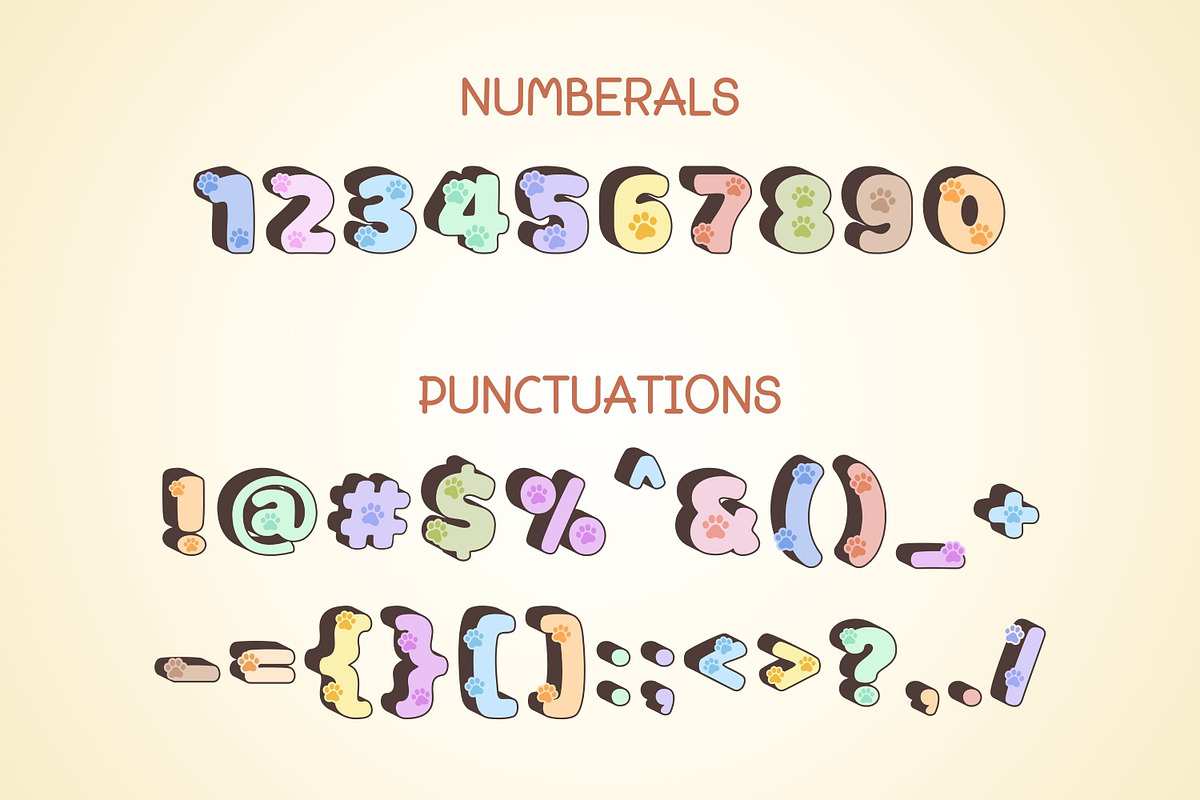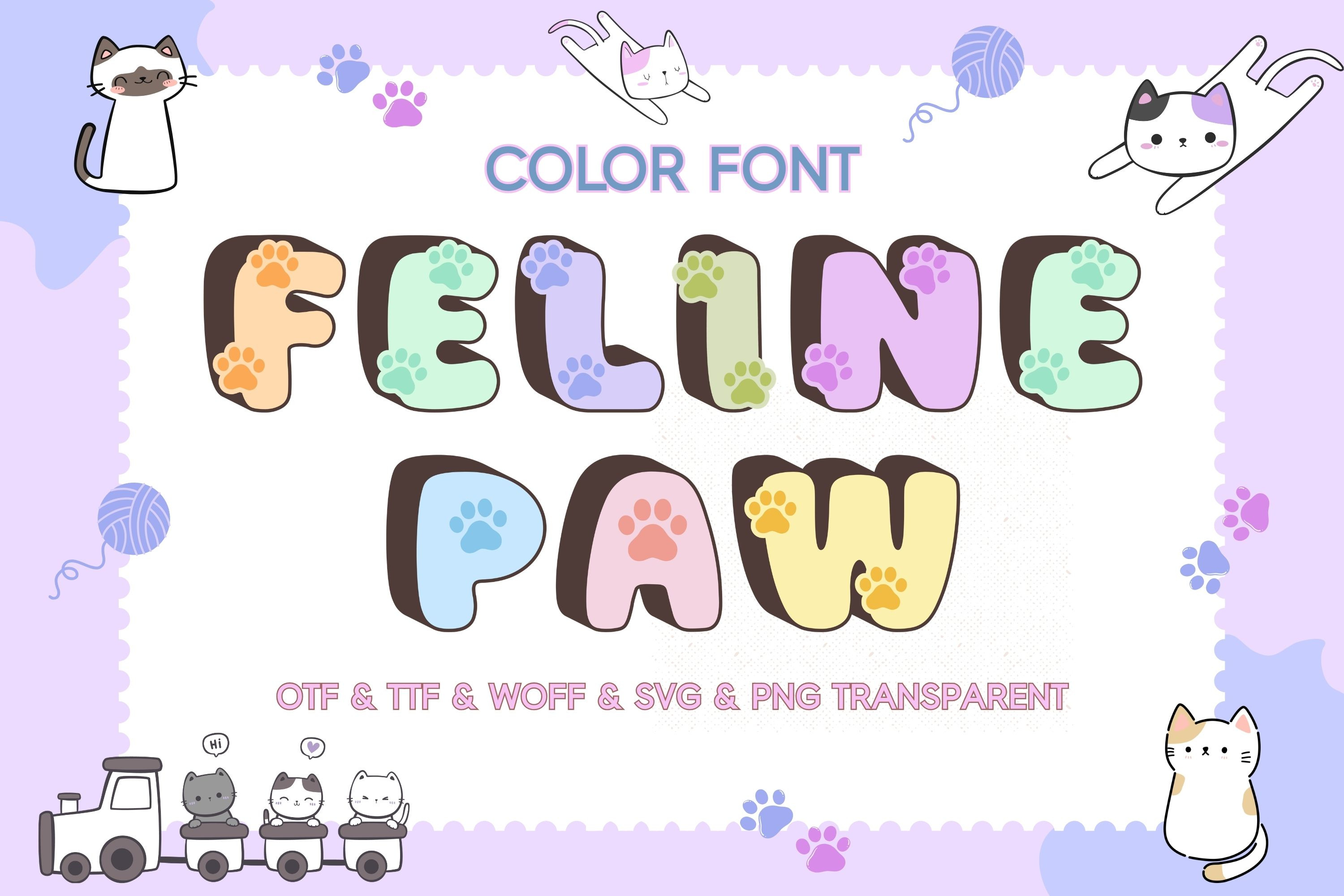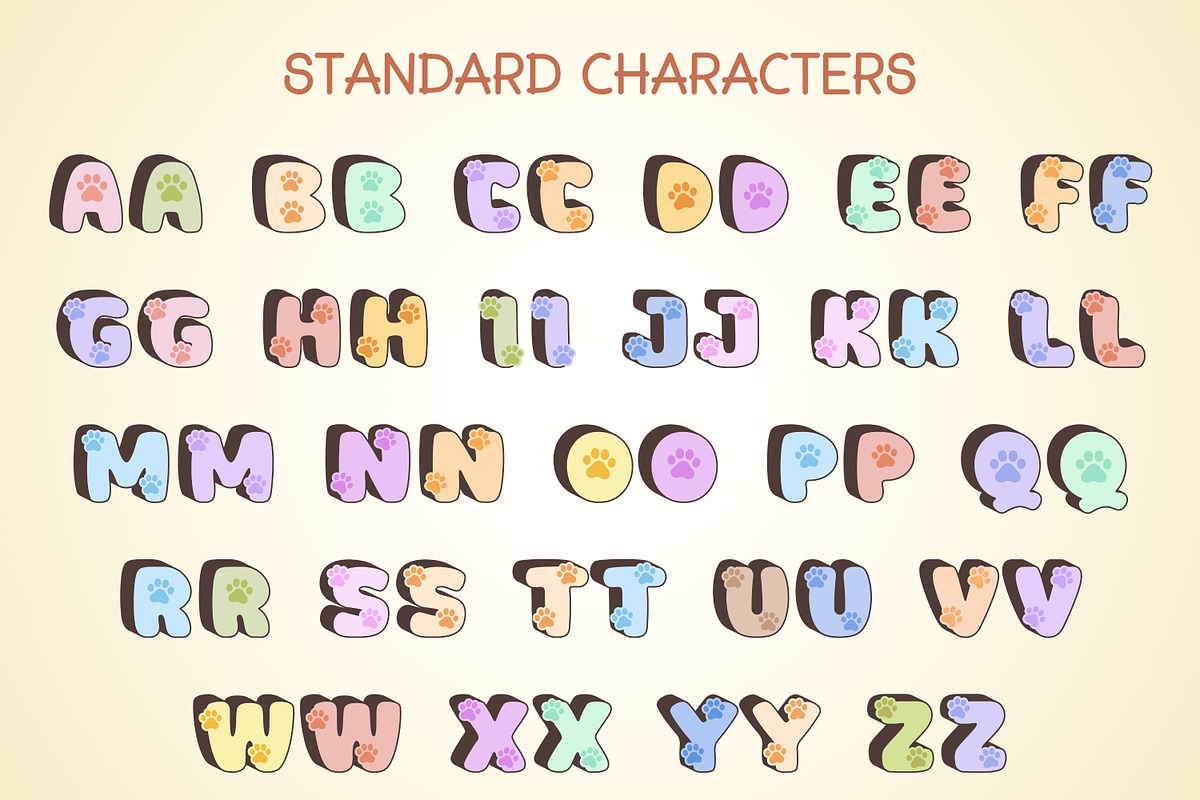
Feline Paw - Color Font
Celebrate your love for cats with this adorable Feline Paw Color Font! Featuring chunky bubble letters decorated with cute pastel cat paw prints, this playful typeface is perfect for creating charming designs for International Cat Day, birthday invitations, stickers, sublimation projects, t-shirts, mugs, nursery decor, planners, scrapbooking, and more.
This font includes uppercase letters, numbers, and punctuation in soft kawaii pastel shades with a sweet chocolate brown shadow effect that adds depth and warmth. The package comes with multiple formats for maximum compatibility, making it ideal for both digital and print projects.